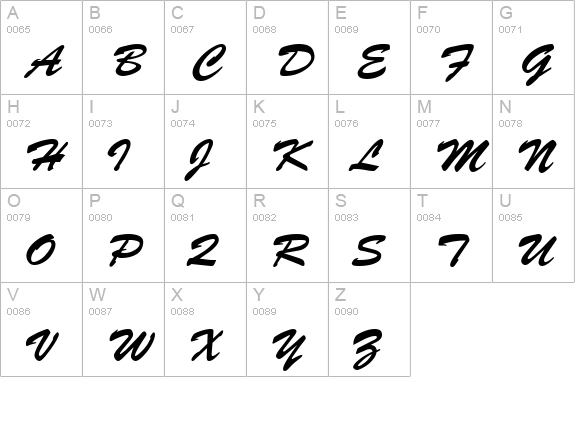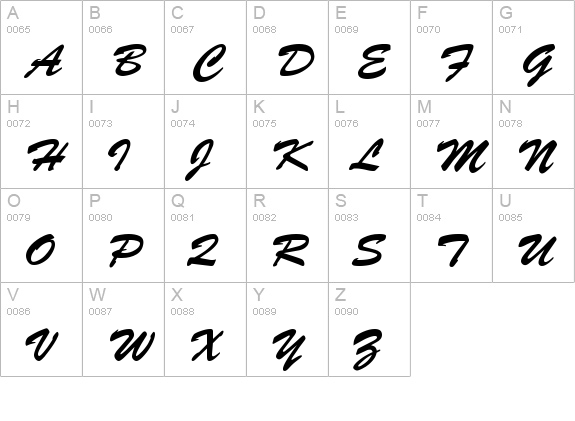
Brush Regular is the standard, neutral variant in the Brush typeface family \xE2\x80\x94 well suited to general body text, paragraphs, and standard typographic work.
Brush Regular font is a versatile and stylish typeface that captures the essence of hand-lettered brush strokes. Its flowing lines and dynamic energy make it perfect for a wide range of design projects, from logos and branding to invitations and posters. This font exudes a sense of creativity and spontaneity, adding a touch of artistic flair to any design. What makes Brush Regular font even more appealing is that it is available for free download at FontsMarket.com. You can easily access this font and incorporate it into your projects without any cost. Whether you're a professional designer looking for a fresh new font or a hobbyist seeking to add a unique touch to your creations, Brush Regular font is a fantastic choice. Enhance your designs with this free and captivating typeface today!